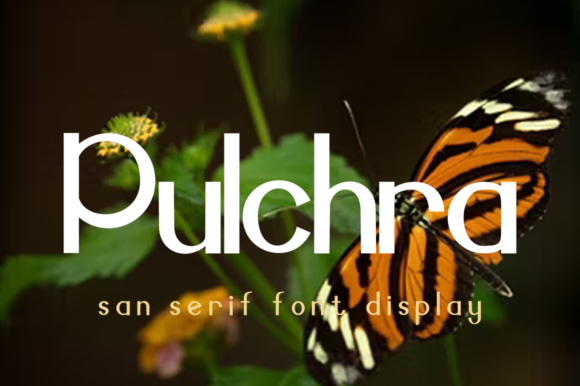
Embrace the grandeur of Pulchra, a vision of elegance artfully captured as a sans serif font. Gatra Std., the visionary behind this stunning creation, invites you on an aesthetic journey that will leave you breathless. Immerse yourself in the world of Pulchra, where minimalism and modernity intertwine, giving rise to typographic masterpieces.
With Pulchra, your designs will dance with a touch of distinction. Whether you're weaving the tale of a novel, painting the pages of a magazine, or crafting an unforgettable social media presence, Pulchra will infuse your creations with an air of sophistication. Its meticulously crafted characters emanate grace, adding a layer of elegance to every word they adorn.
Unleash your creativity and venture beyond the boundaries of the ordinary. Pulchra's crisp lines and contemporary appeal make it a perfect companion for book covers, where it will captivate readers with its allure. Its presence in magazines will elevate the written word, making every article a visual feast. And when it graces your social media posts, it will ignite conversations and garner admiration.
But Pulchra's versatility extends far beyond these realms. It lends its charm to invitations, greeting cards, and even logos, transforming them into expressions of refined taste. Its ability to harmonize with various design elements makes it a true chameleon, effortlessly adapting to your unique vision.
Experience the joy of Pulchra's PUA encoding, a gateway to a world of captivating glyphs and ligatures. Access these typographic treasures with ease, unlocking endless possibilities for customization and creative expression. Let your words dance across the screen, adorned with exquisite flourishes and delicate curves that will leave a lasting impression.
Pulchra, the epitome of elegance and versatility, awaits your touch. Embrace its allure, let your creativity soar, and witness the transformation of your designs into works of art.